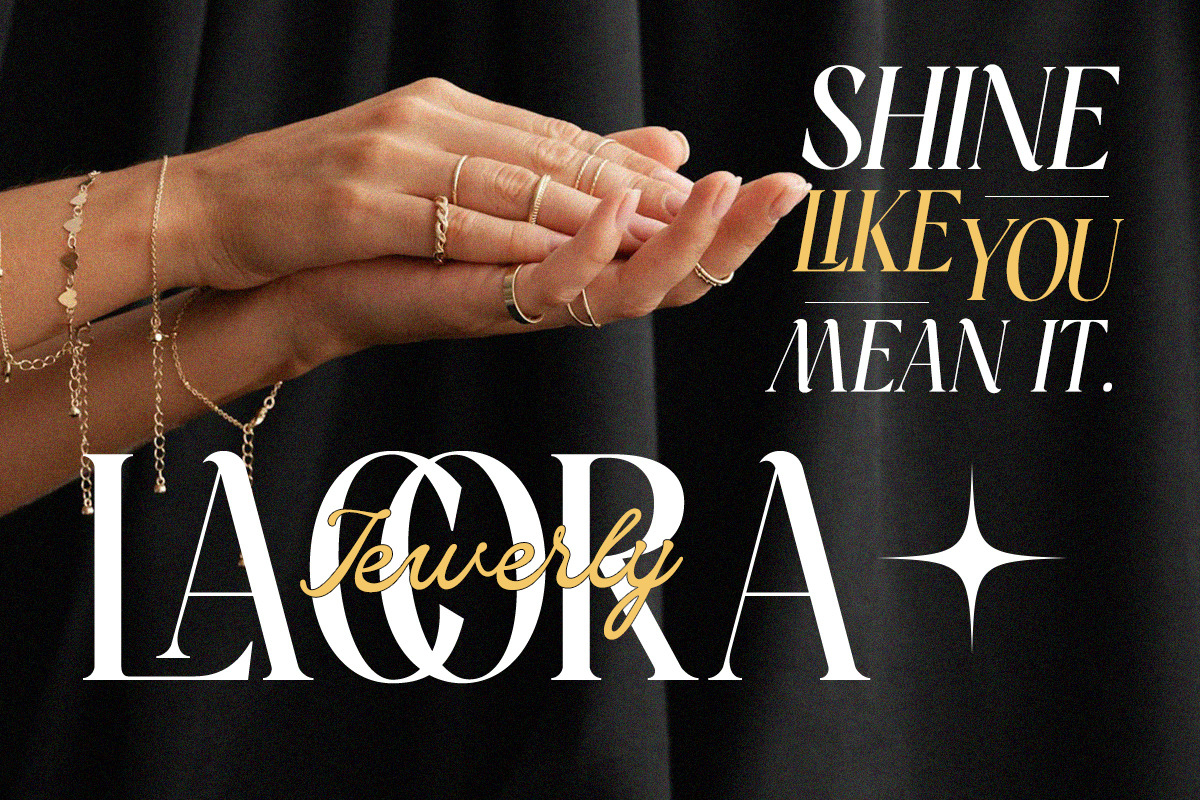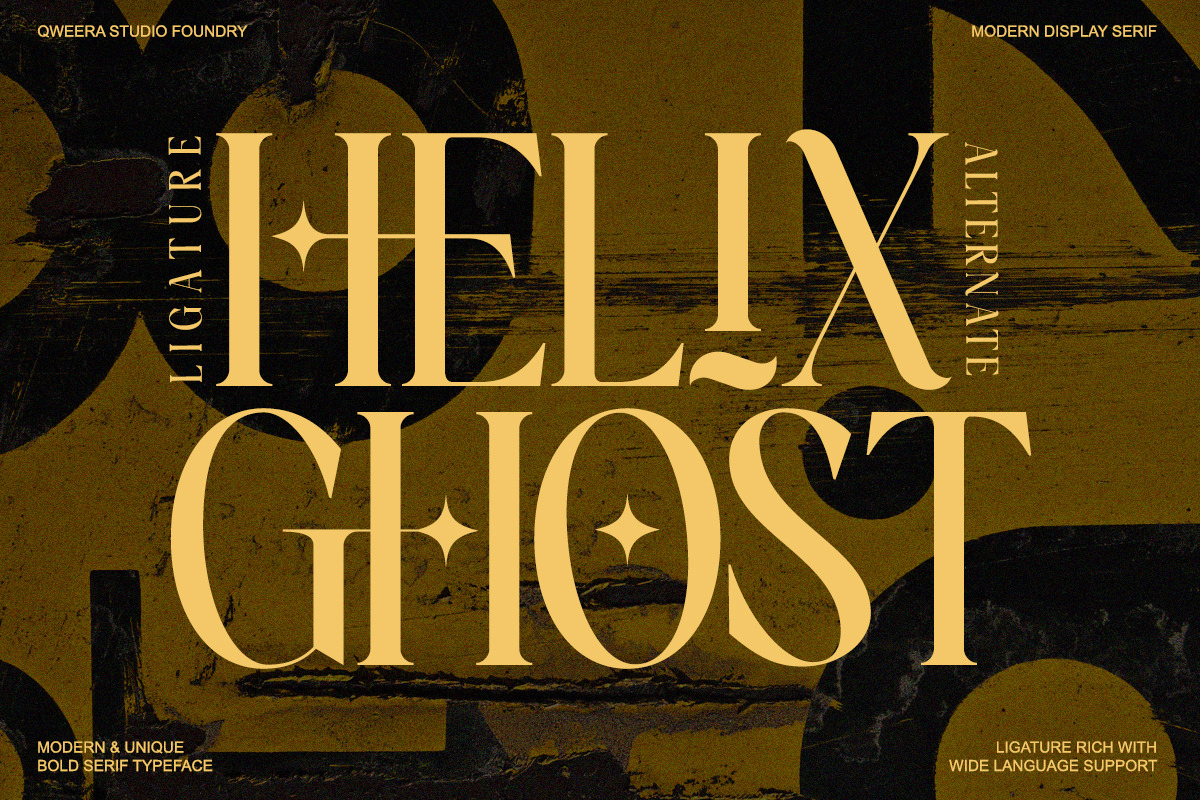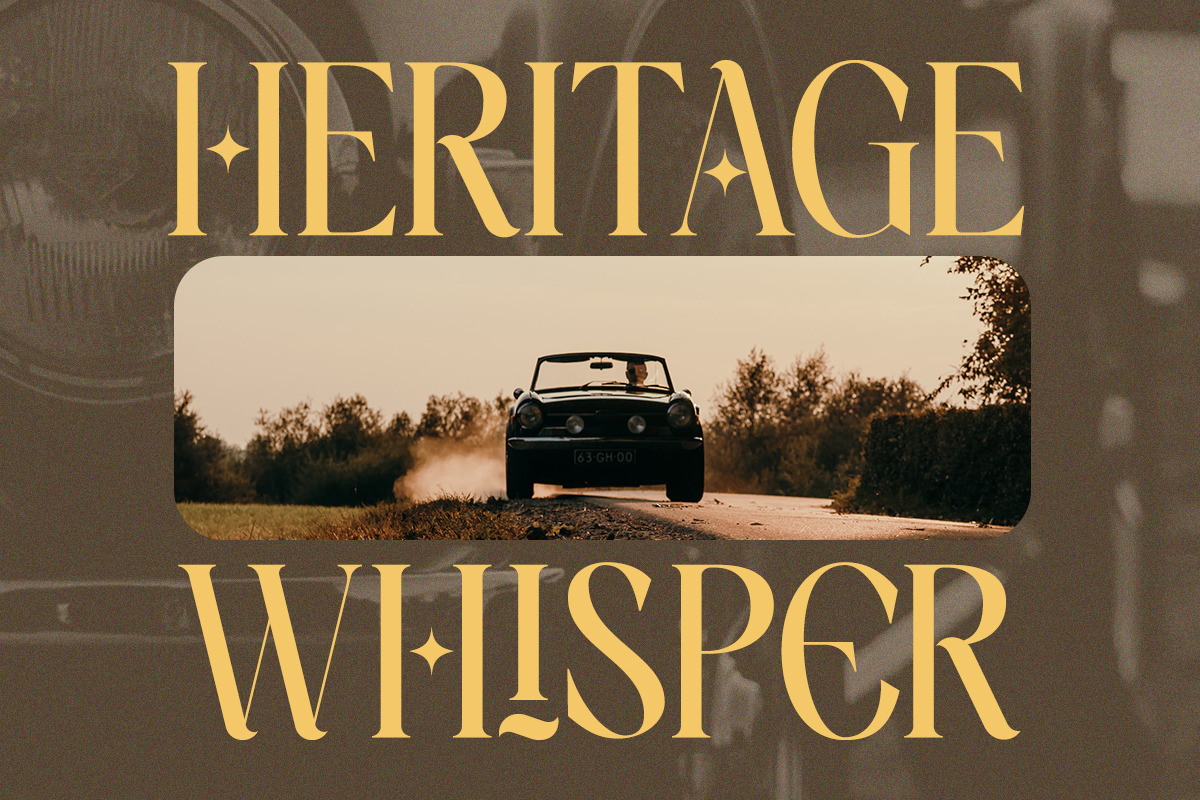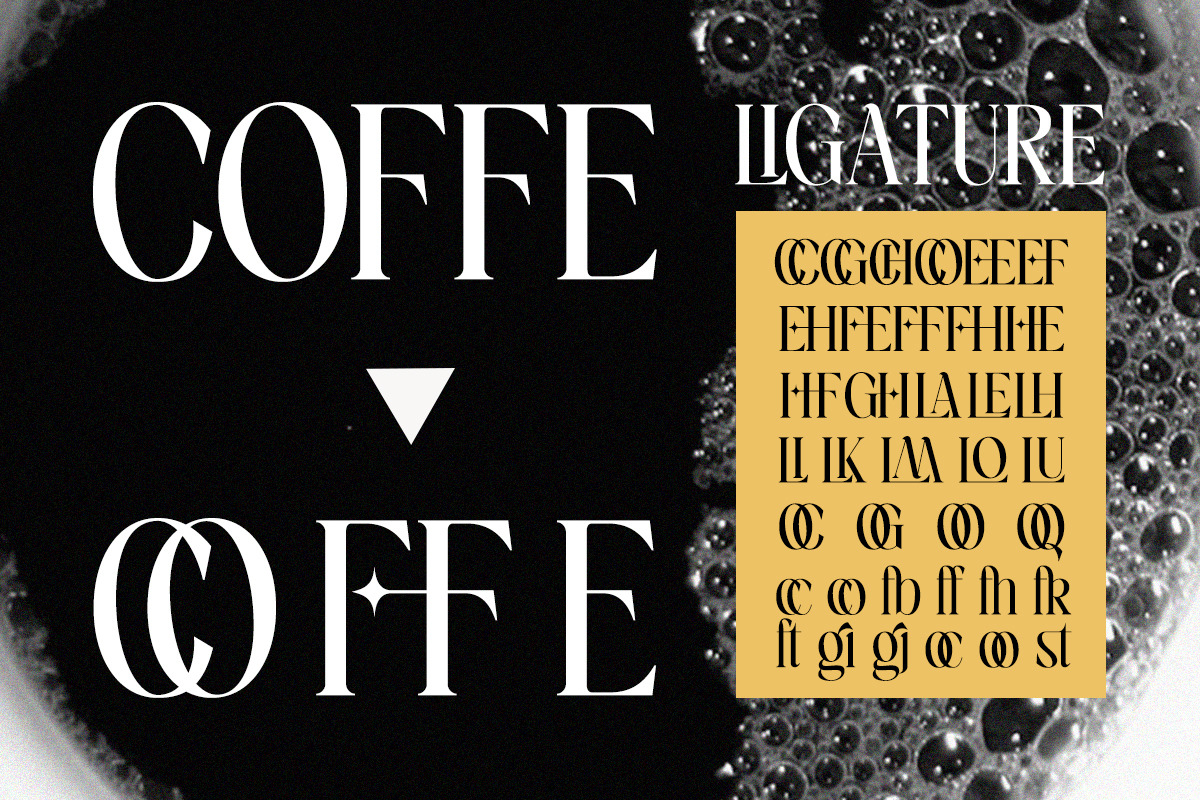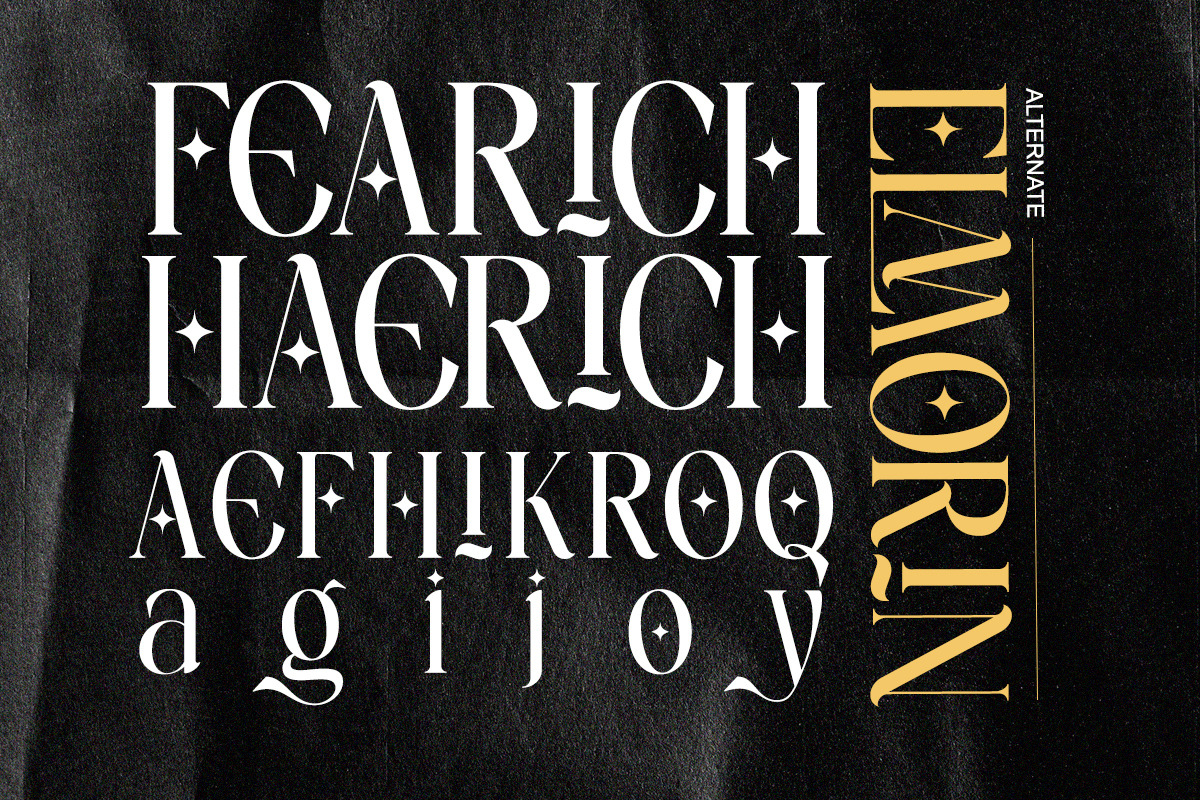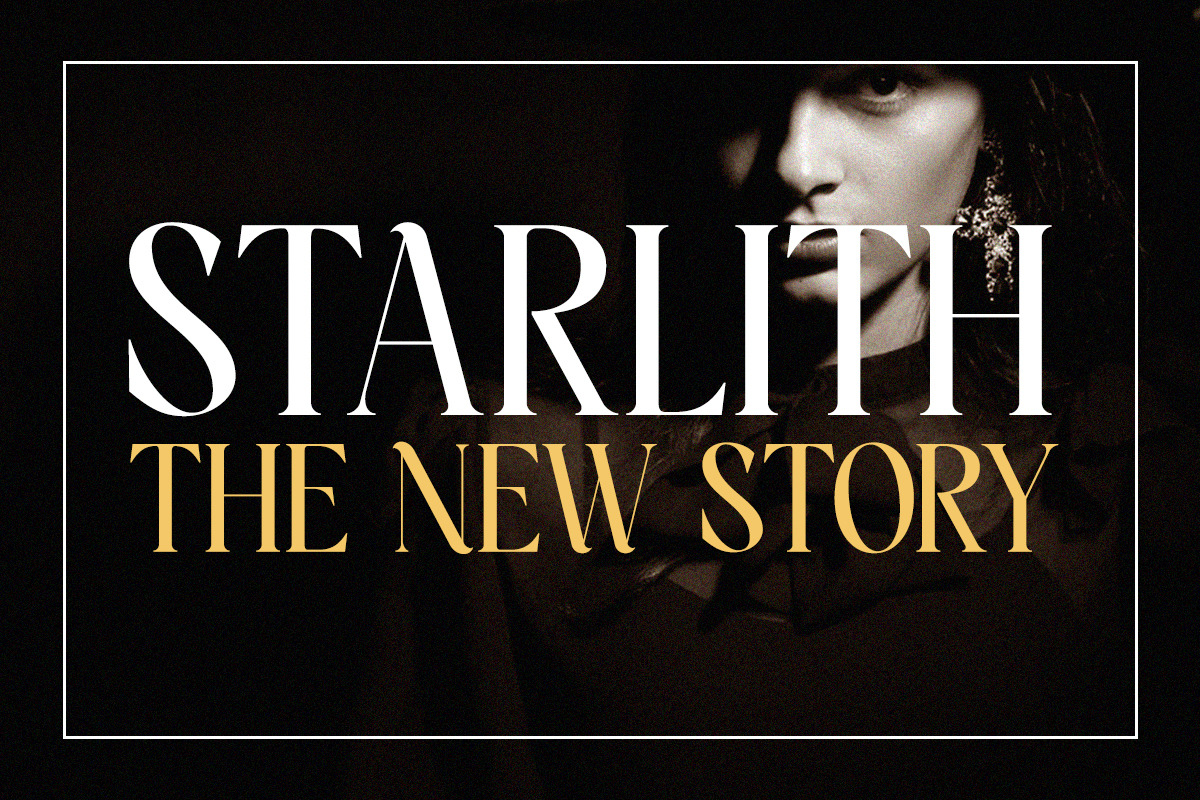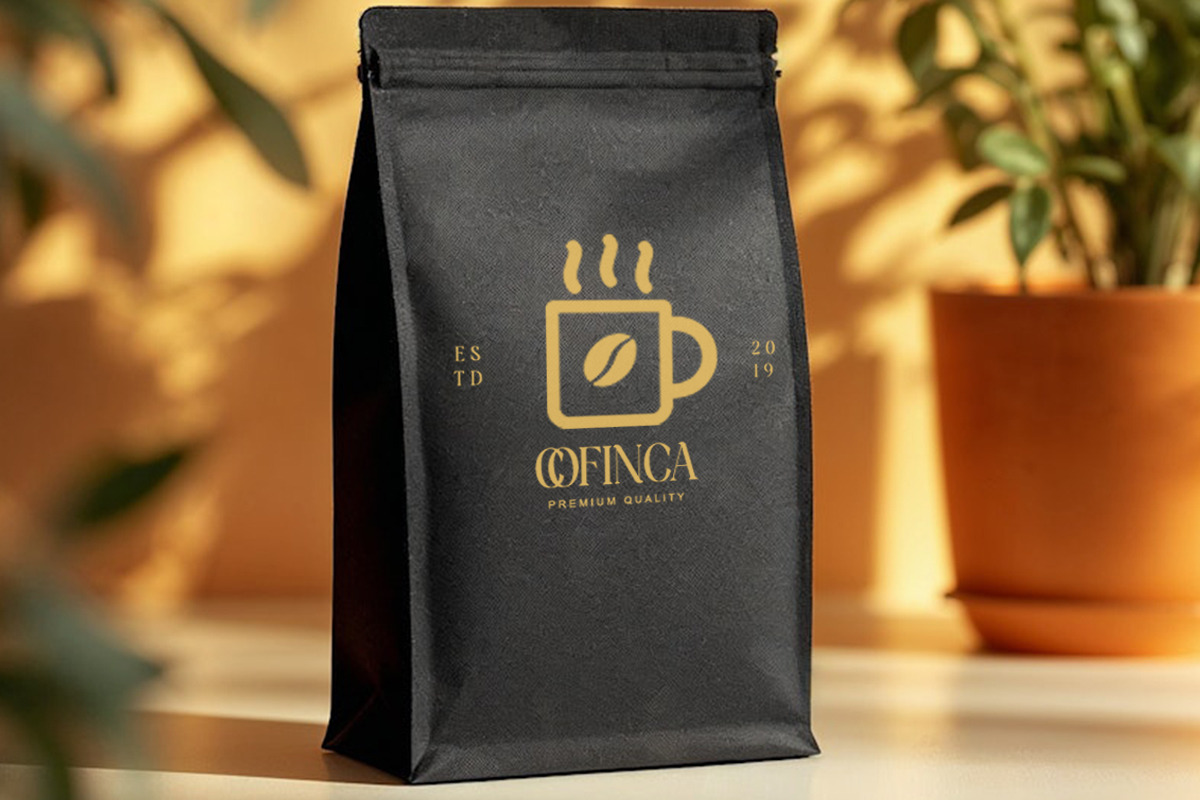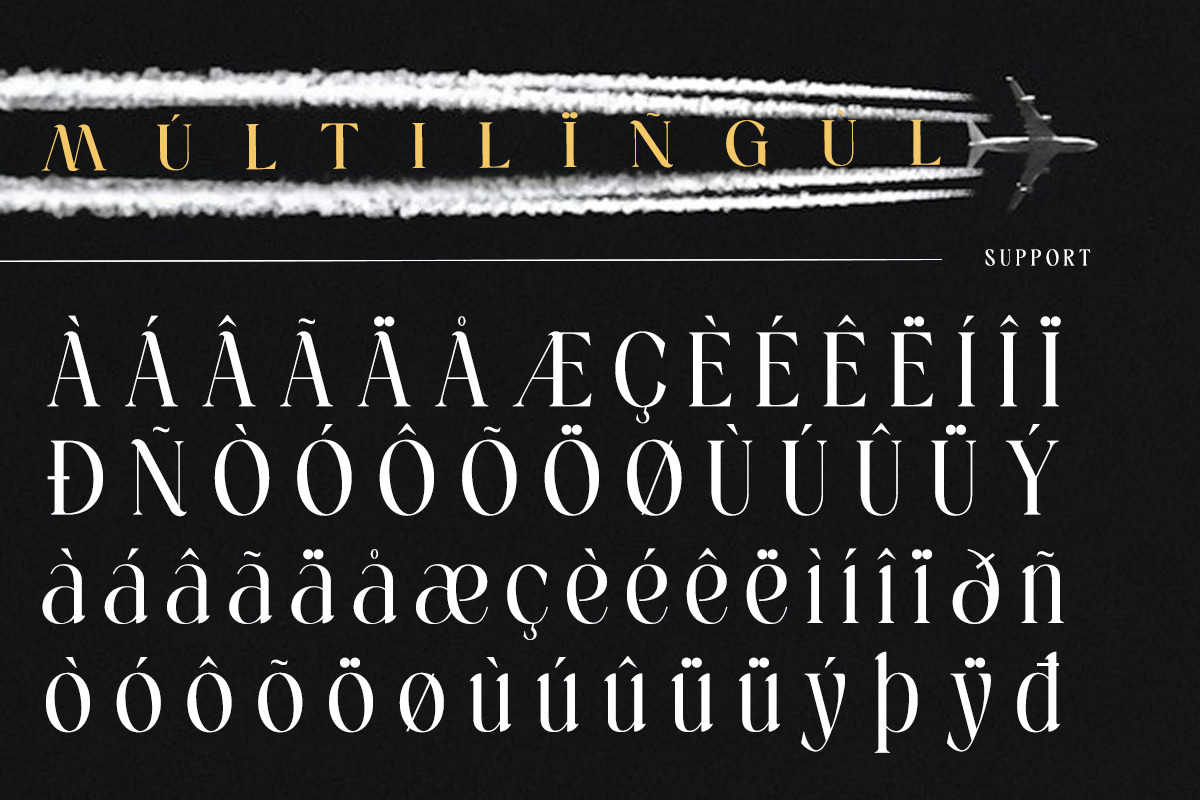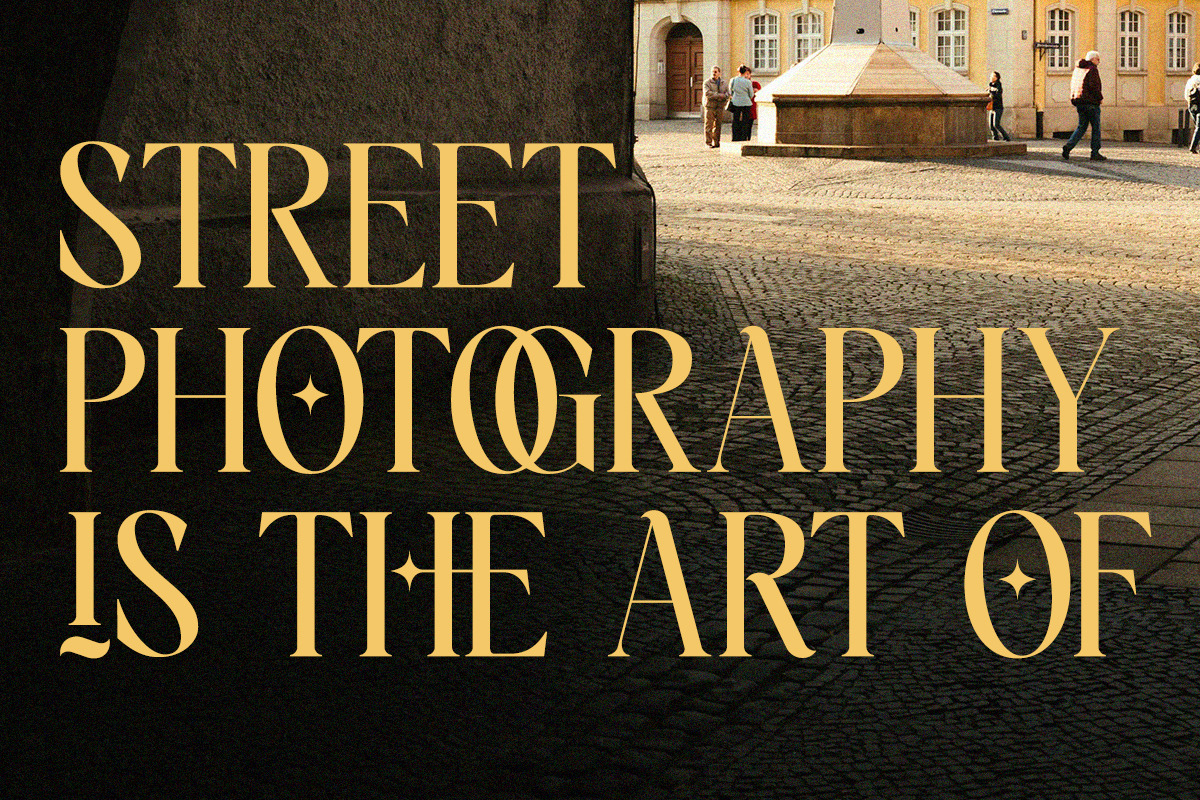
Elmorin - Modern Elegant Serif
Elmorin - Modern Elegant Serif Font with Heritage Character
Elmorin is a refined serif font that blends traditional charm with contemporary finesse. Inspired by timeless editorial typography and classic Roman proportions, Elmorin delivers strong visual identity and subtle ornamental flair—perfect for storytelling brands, luxury packaging, and stylish editorial layouts.
From bold headlines to graceful body text, Elmorin offers versatility with a distinctive personality. Its elegant curves, dynamic contrast, and alternate characters make it ideal for designers seeking a serif that is both classical and modern.
- Modern-Classic Serif – Inspired by editorial and luxury design
- 2 Styles – Regular & Italic for flexible applications
- Unique Personality – Subtle flare and elegant terminals
- Alternates & Ligatures – Carefully crafted for typographic expression
- Multilingual Support – Latin-based characters included
- Luxury branding & product labels
- Editorial design & fashion lookbooks
- Antique-inspired packaging
- Museum, gallery, or cultural publications
- Vintage-modern logo design
- Prestige wedding or invitation projects
Elevate Design with Elmorin's Timeless Soul
From medieval echoes to modern elegance, Elmorin breathes character into your typography. A perfect fusion of old-world charm and modern aesthetics, made to tell stories with strength and grace.